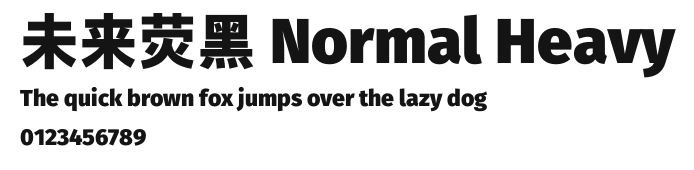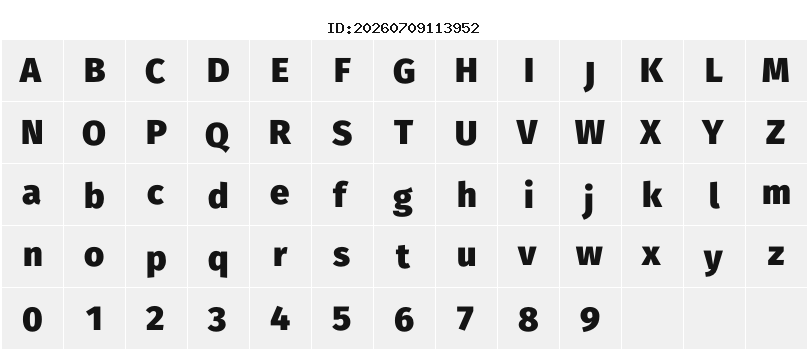
• Font Name: 未来荧黑 Normal Heavy
• Full Font Name: 未来荧黑 Normal Heavy
• PostScript Name: GlowSansSC-Normal-Heavy
• Designer: Ryoko NISHIZUKA 西塚涼子 (kana, bopomofo & ideographs); Paul D. Hunt (Latin, Greek & Cyrillic); Sandoll Communications 산돌커뮤니케이션, Soo-young JANG 장수영 & Joo-yeon KANG 강주연 (hangul elements, letters & syllables); Glow Sans is built by Celestial Phineas.
• Description: Source Han Sans is built by Dr. Ken Lunde (project architect, glyph set definition & overall production); Masataka HATTORI 服部正貴 (production & ideograph elements)
About 未来荧黑 Normal Heavy.otf
未来荧黑 Normal Heavy.otf is a modern, elegant sans-serif font designed for ultimate readability and visual harmony. Perfect for branding, headlines, web design, and print materials.